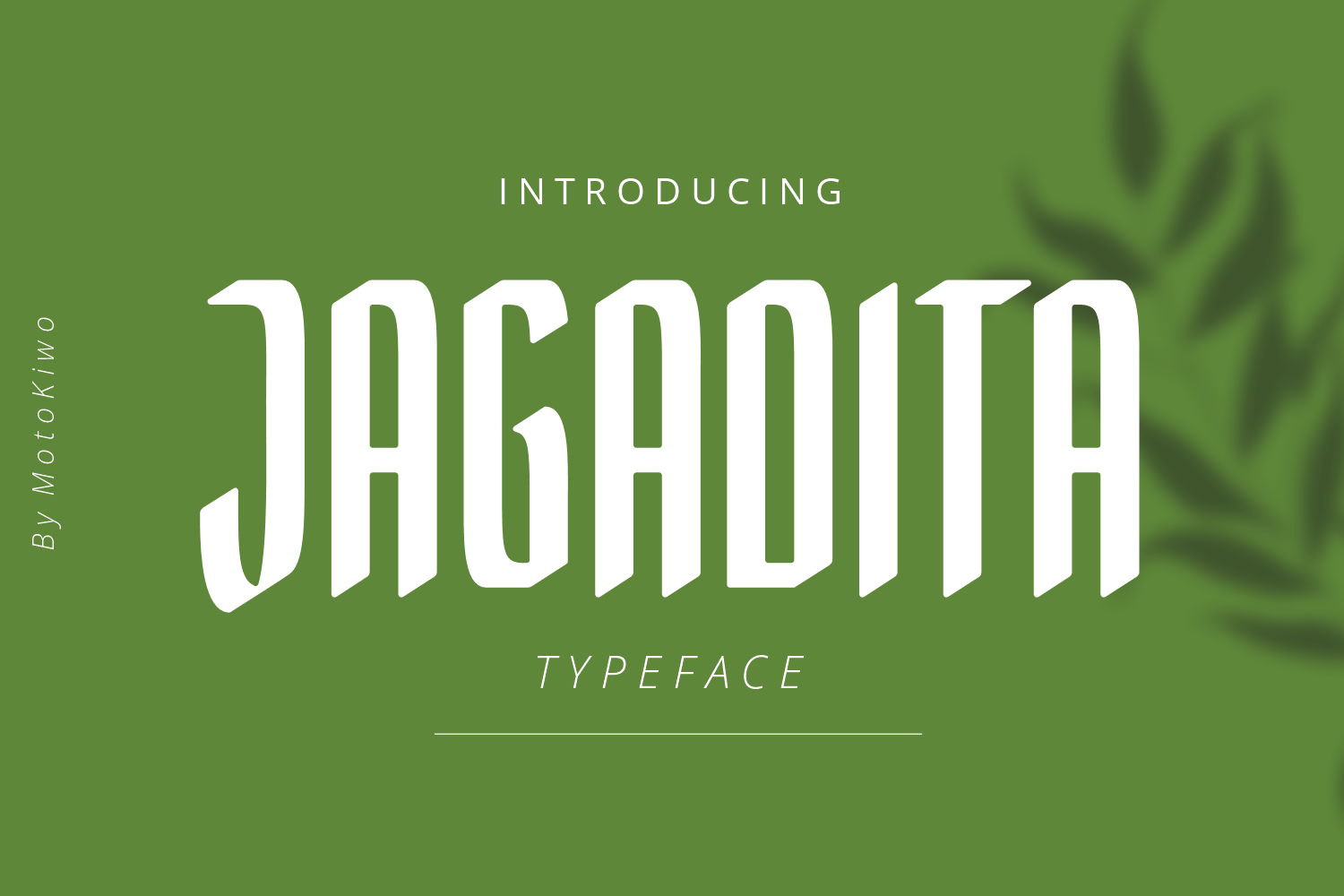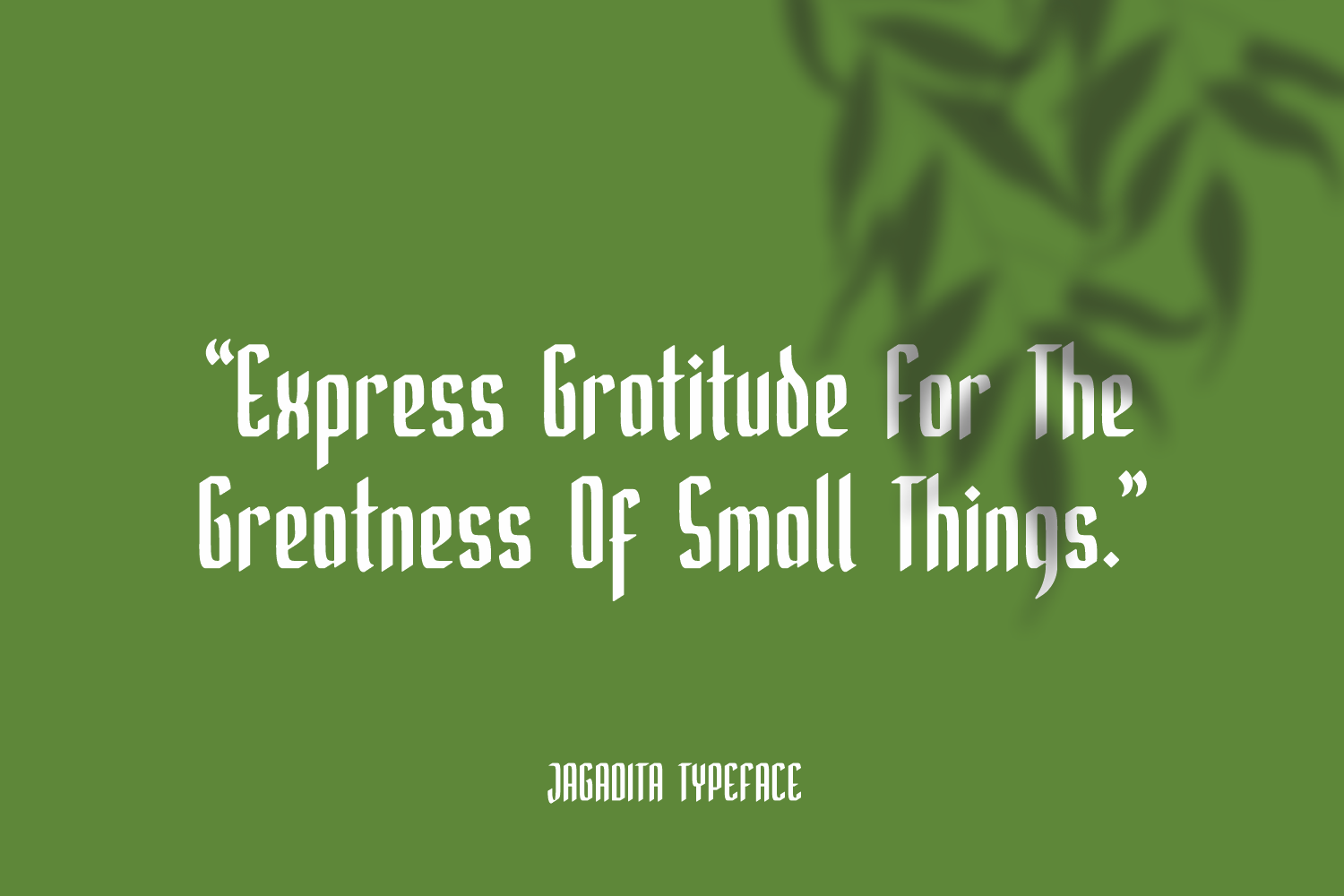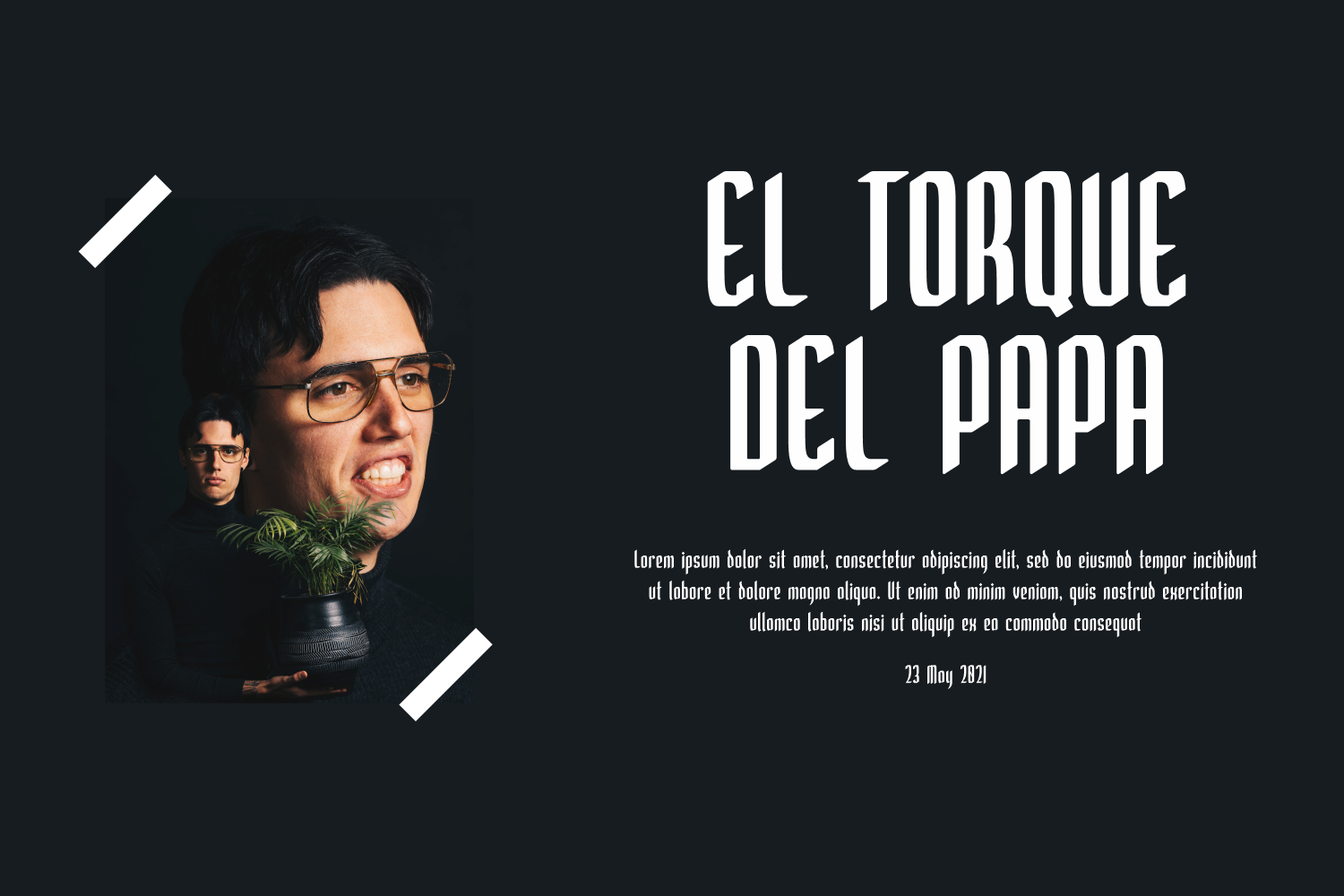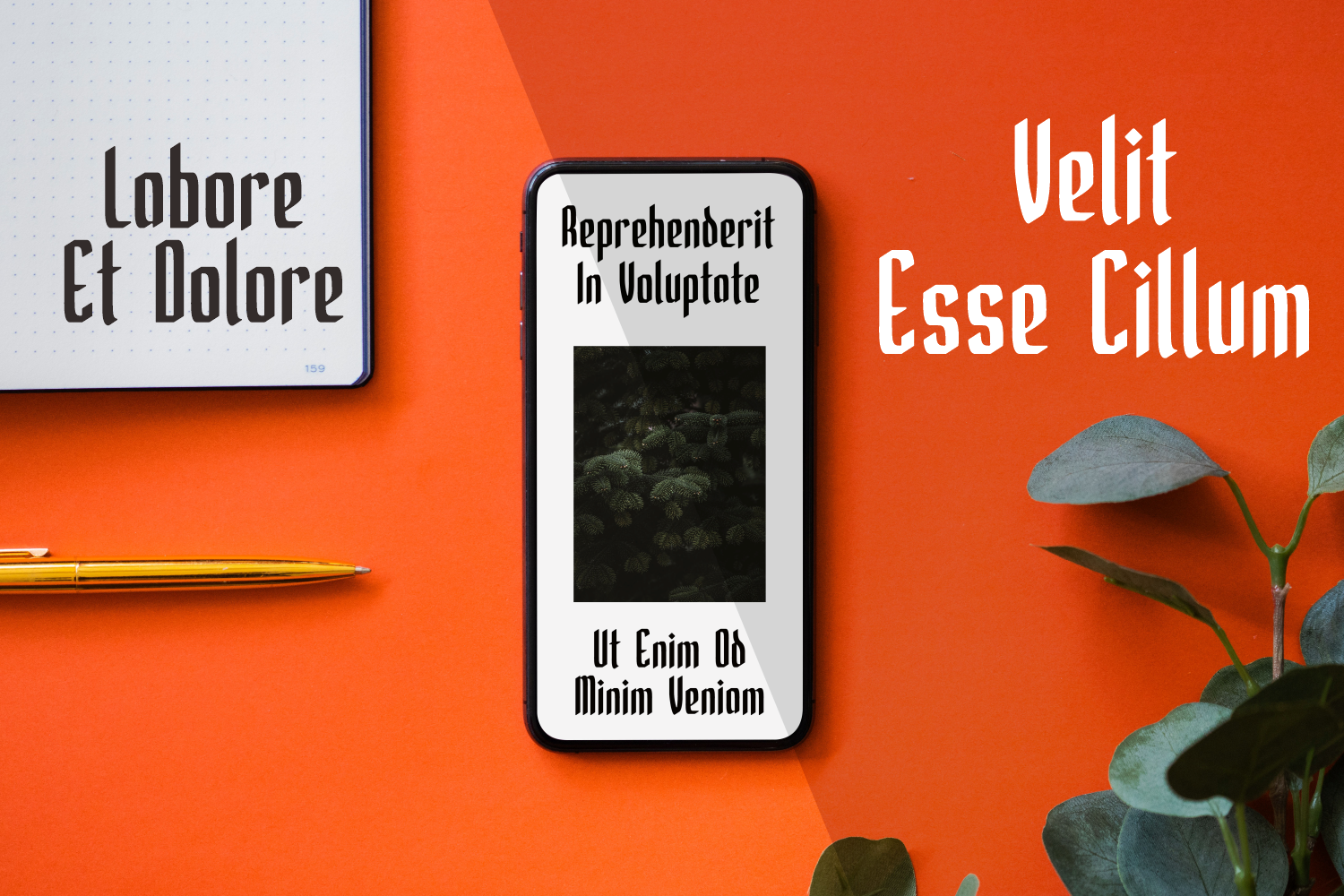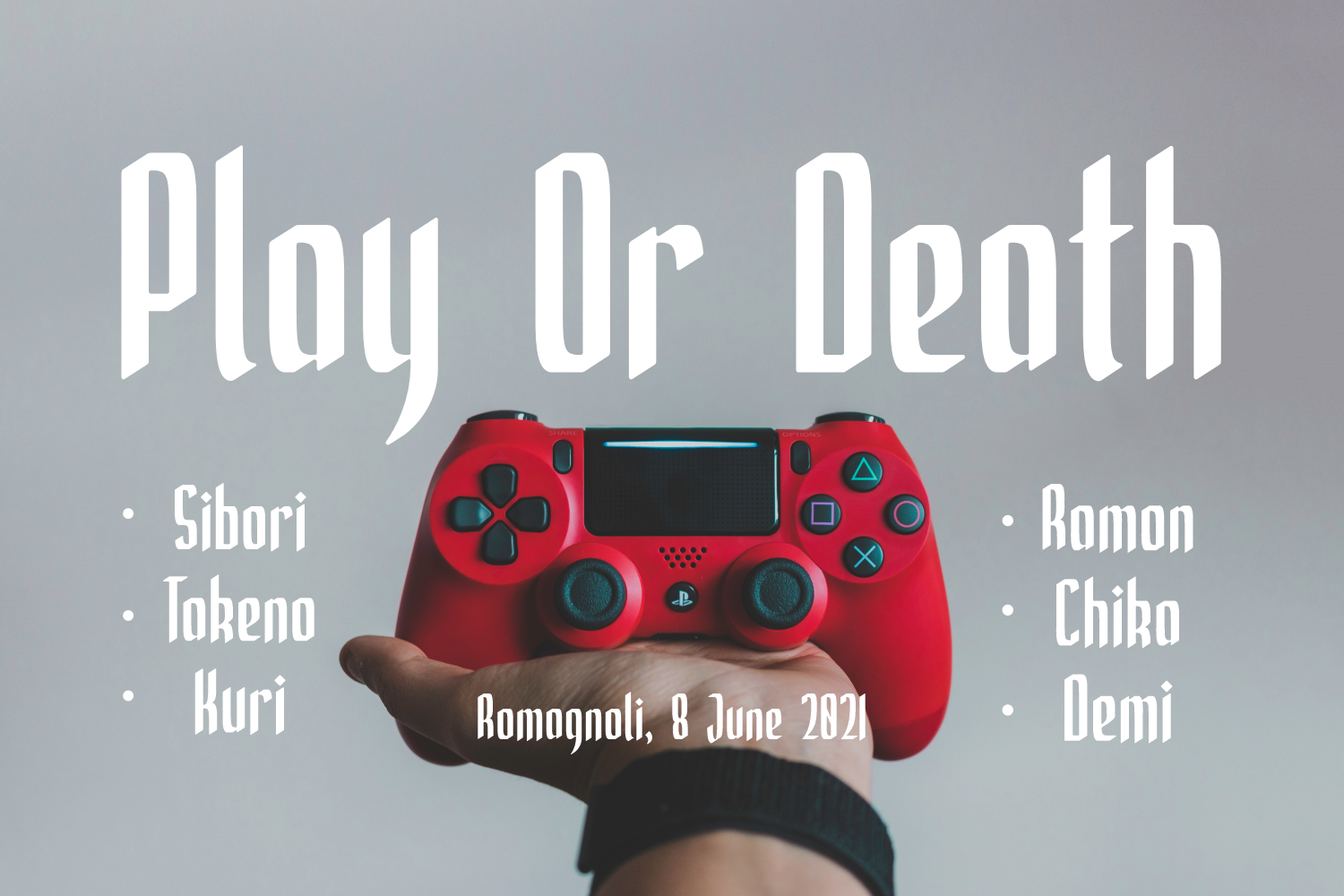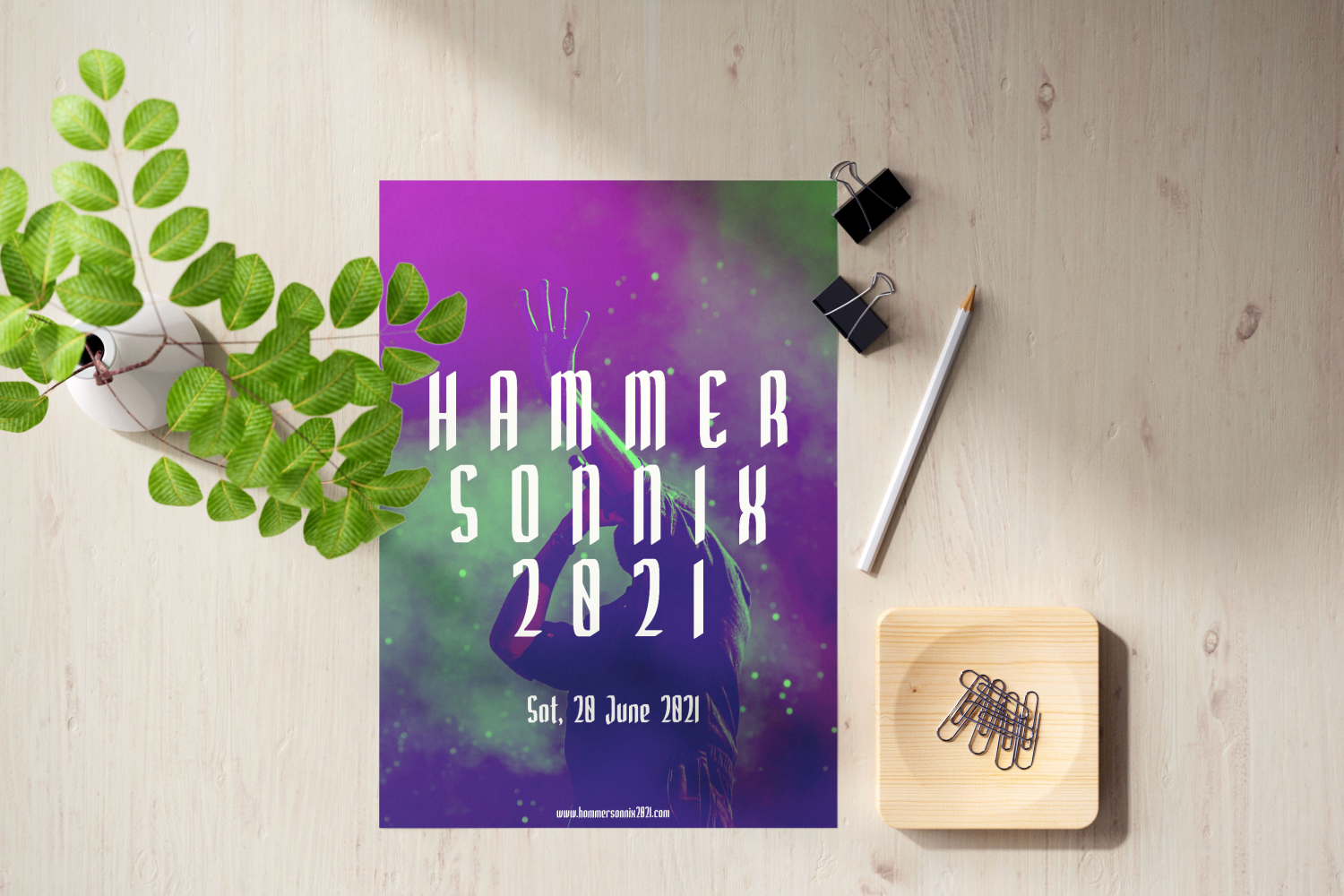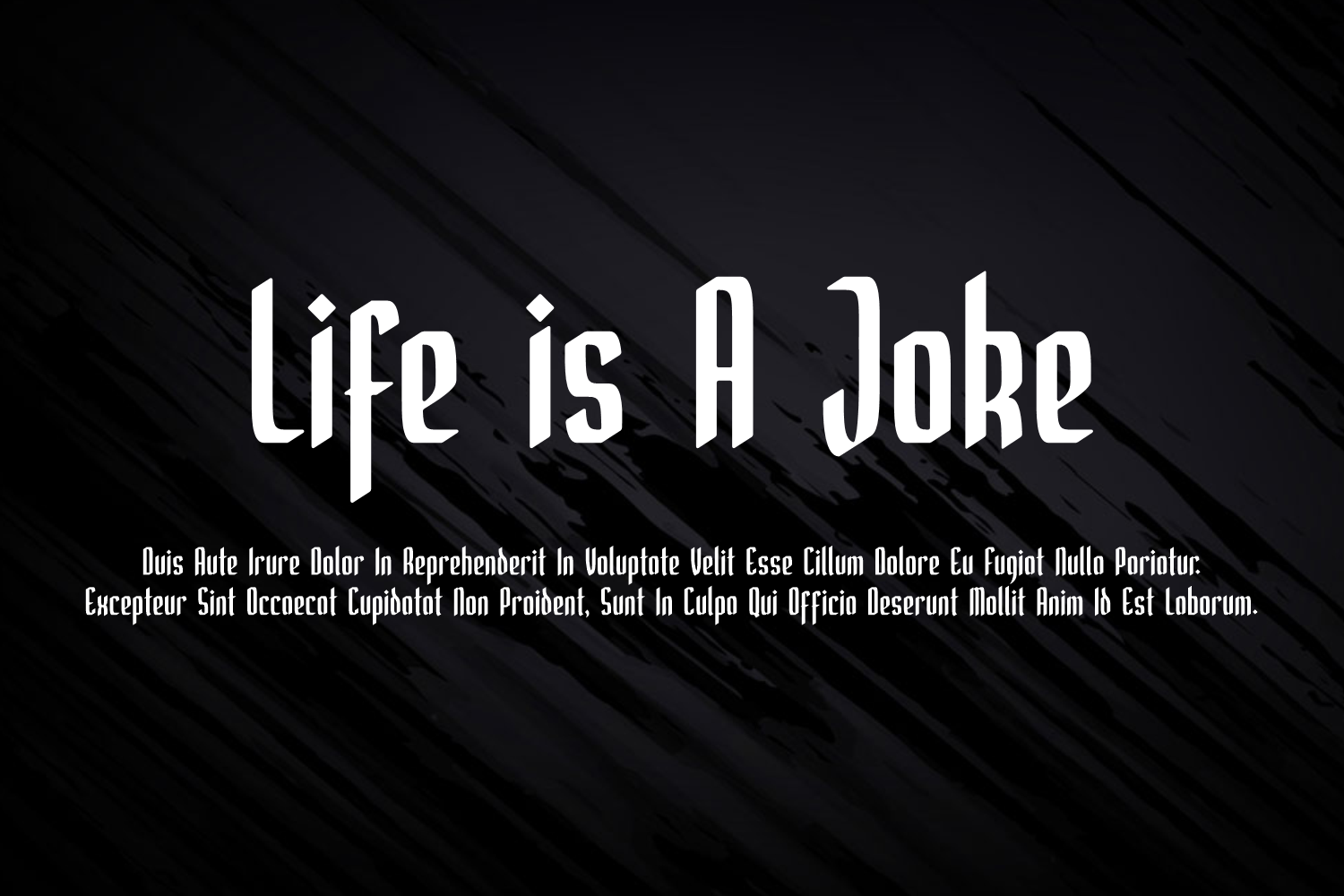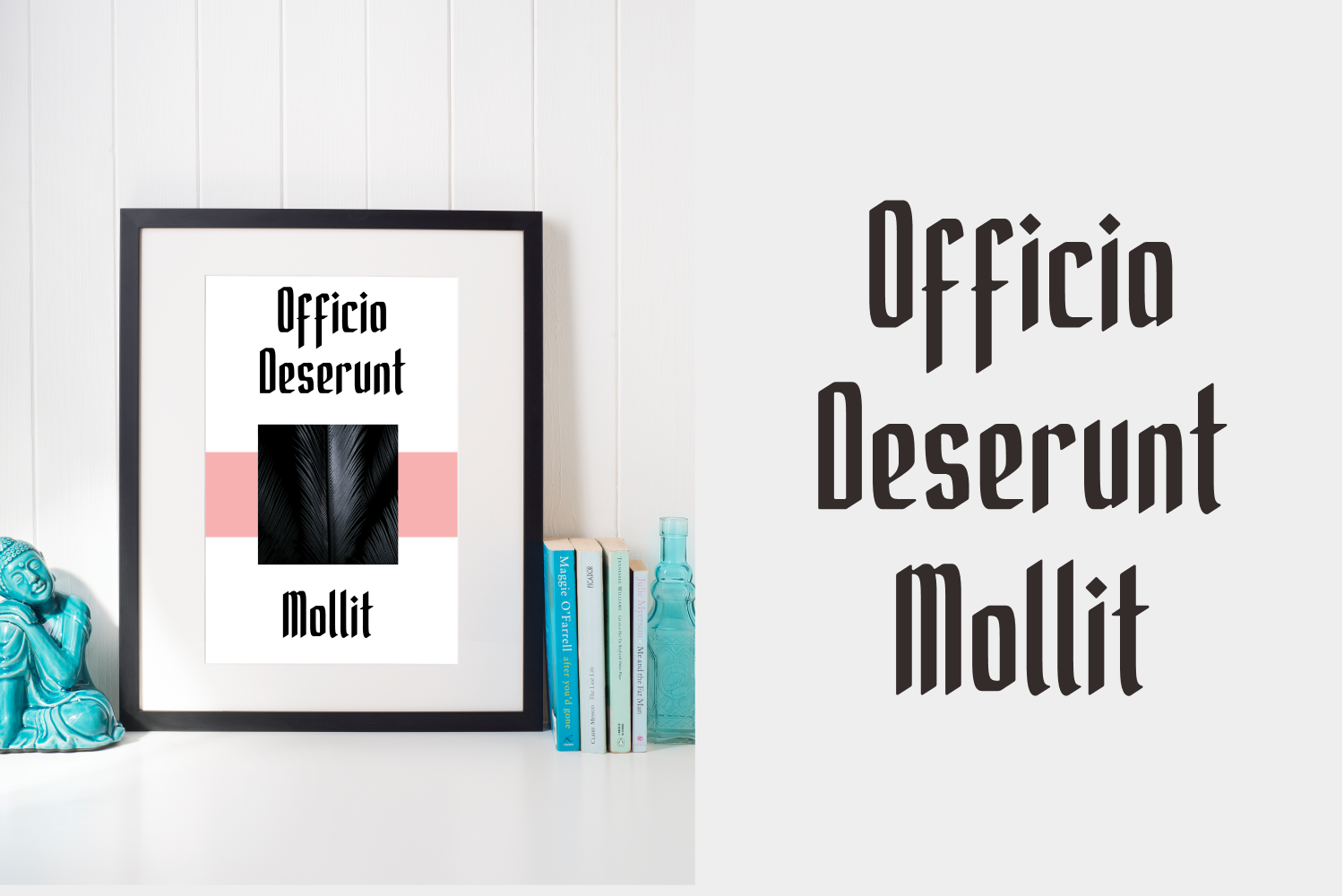
Jagadita is a distinctive display typeface that blends gothic-inspired structural foundations with modern, sharp-edged brush stroke aesthetics. The letterforms feature a condensed, vertical orientation characterized by high-contrast terminals and angled, chiseled serifs that suggest a hand-painted or calligraphic origin. Its rigid, architectural posture gives it an authoritative and slightly edgy presence, making it well-suited for bold editorial headlines, impactful poster designs, or creative branding that requires a balance between traditional formality and contemporary grit. The typeface maintains high legibility even at smaller display sizes, offering a consistent, rhythmic texture across both uppercase and lowercase settings.